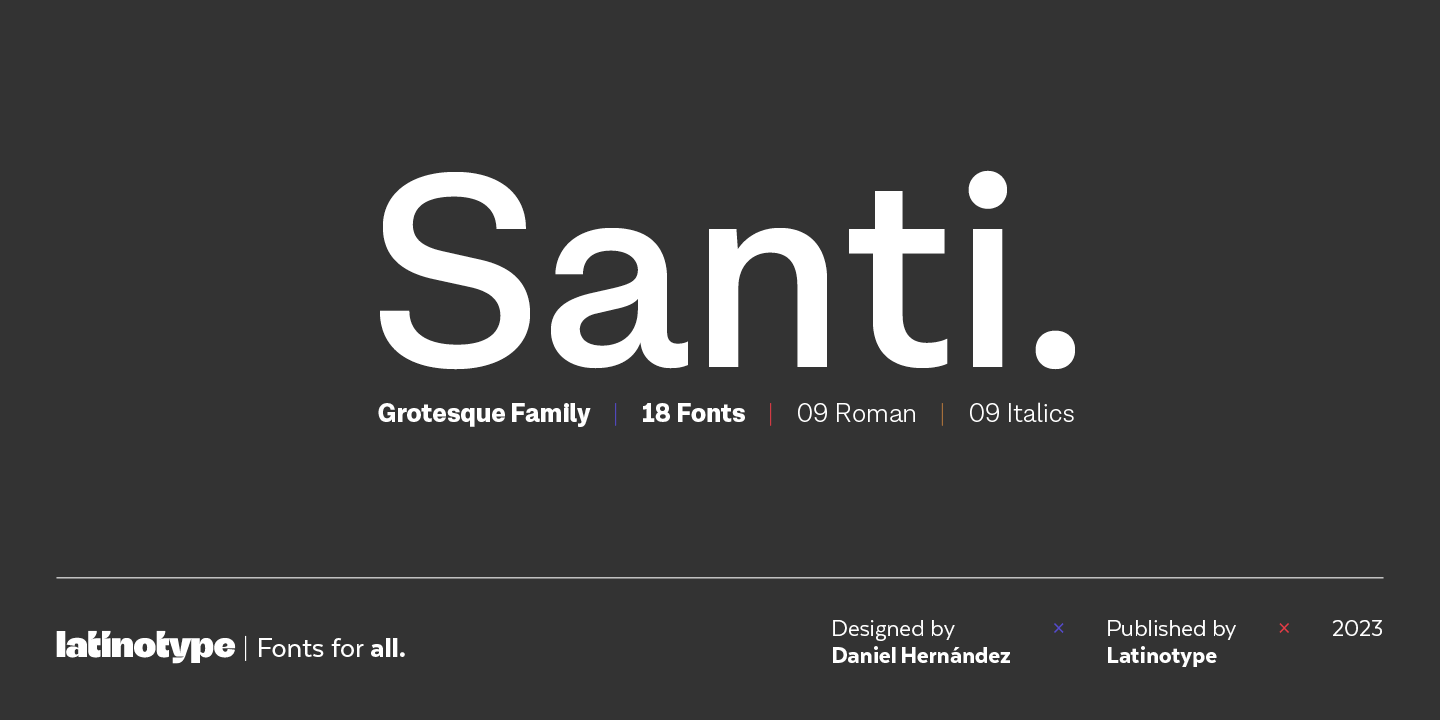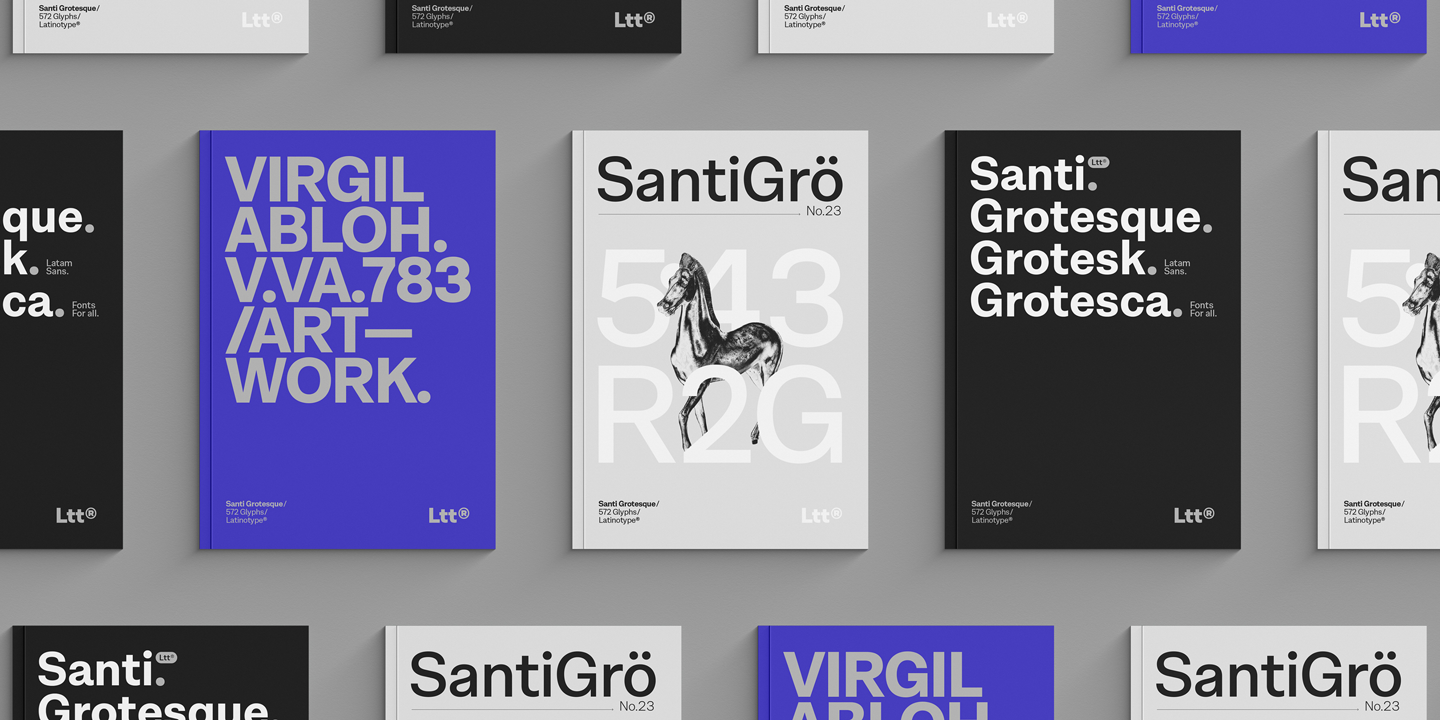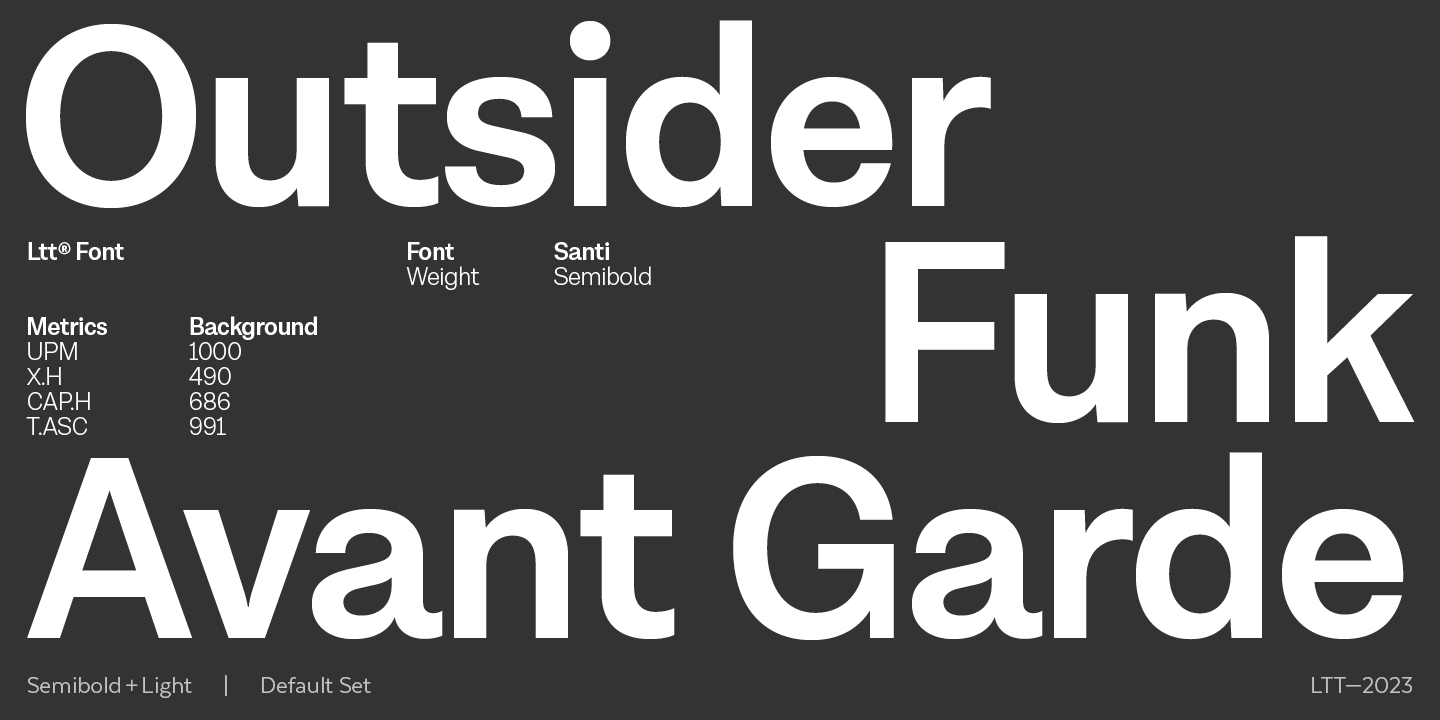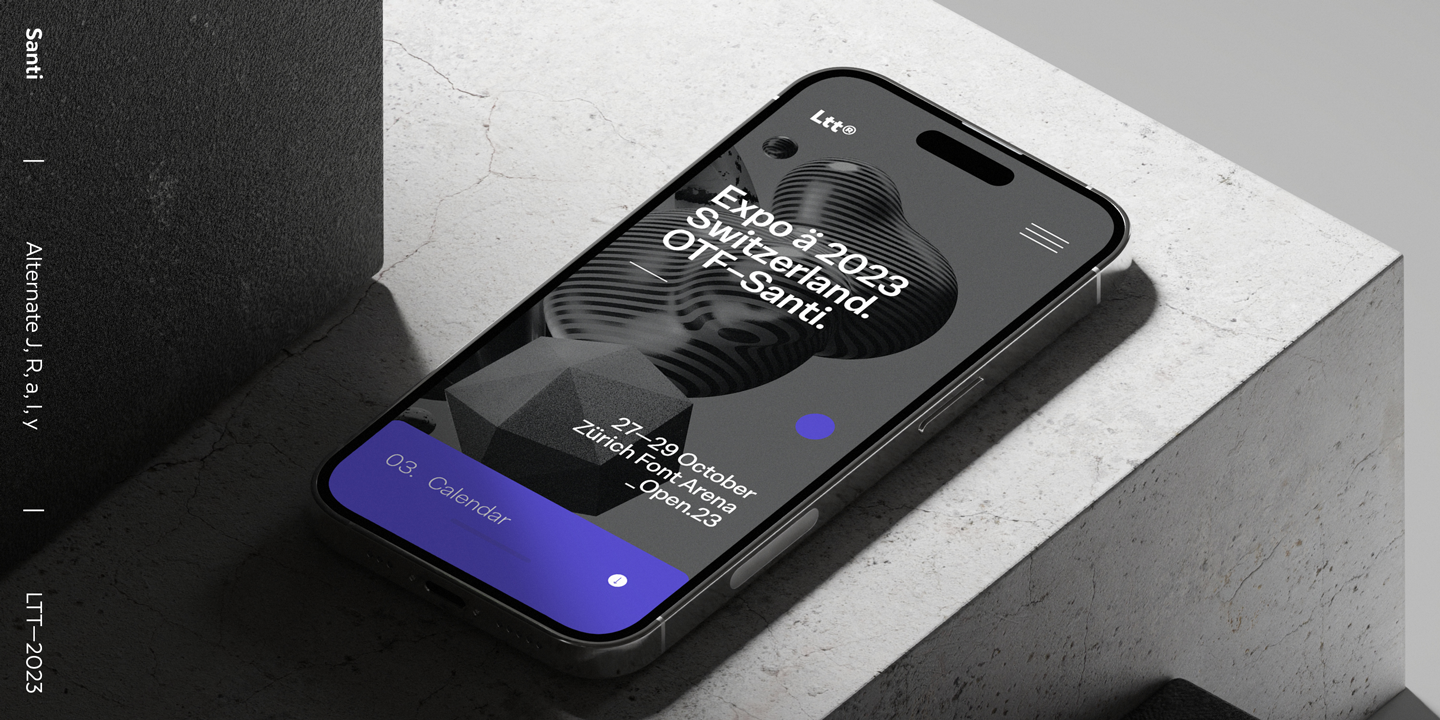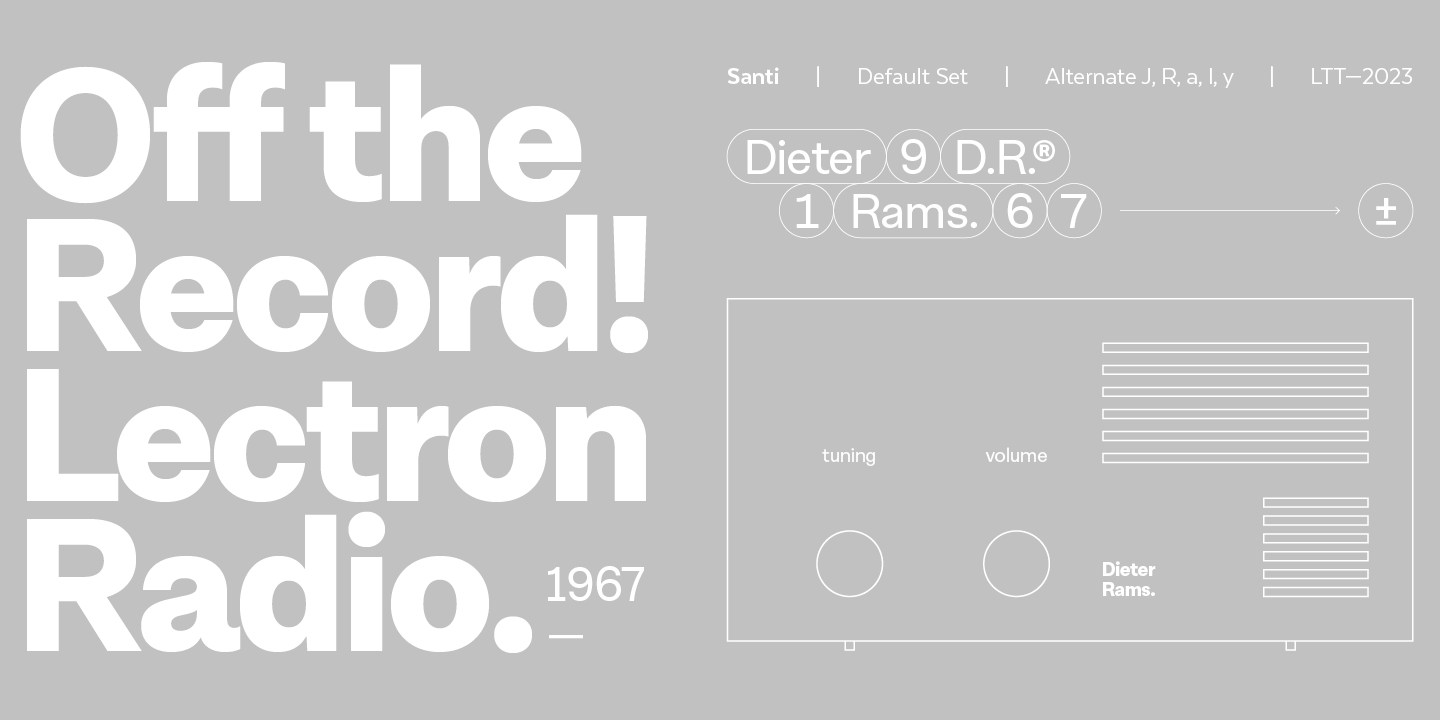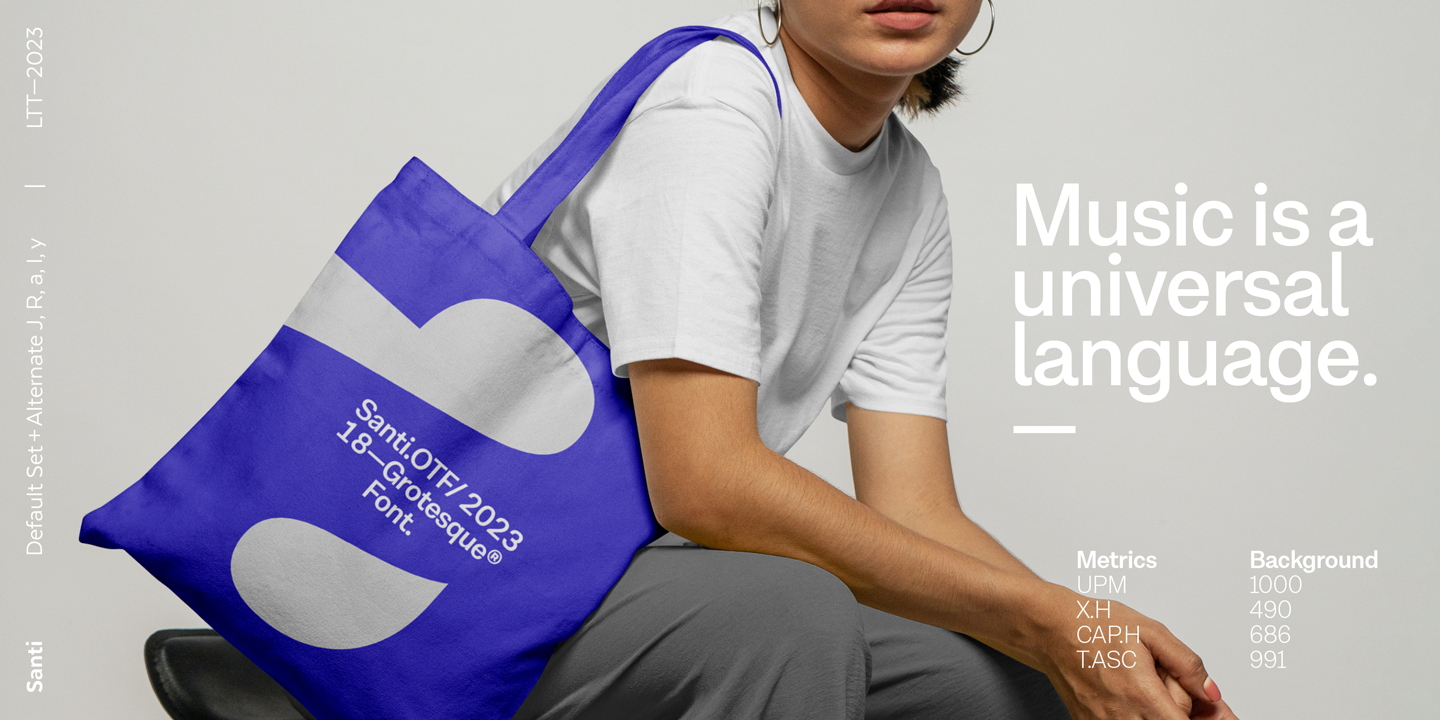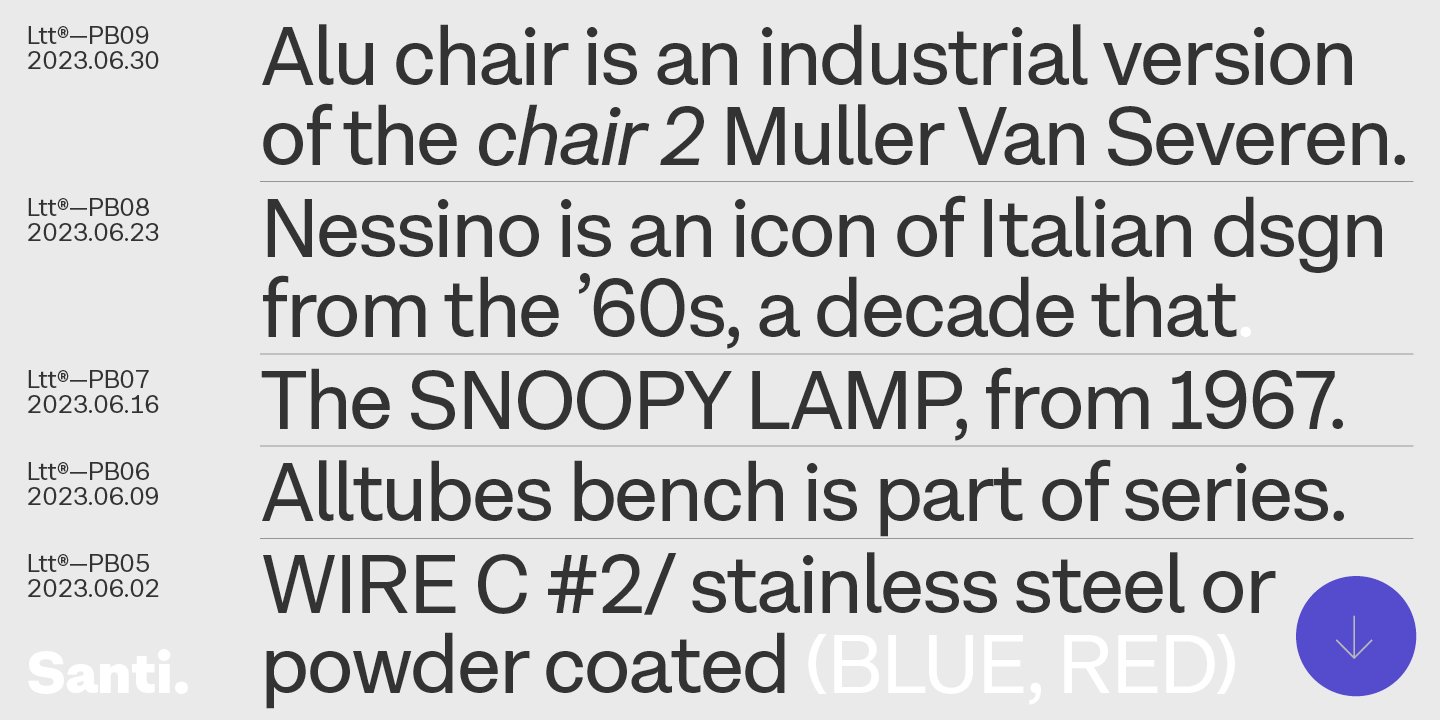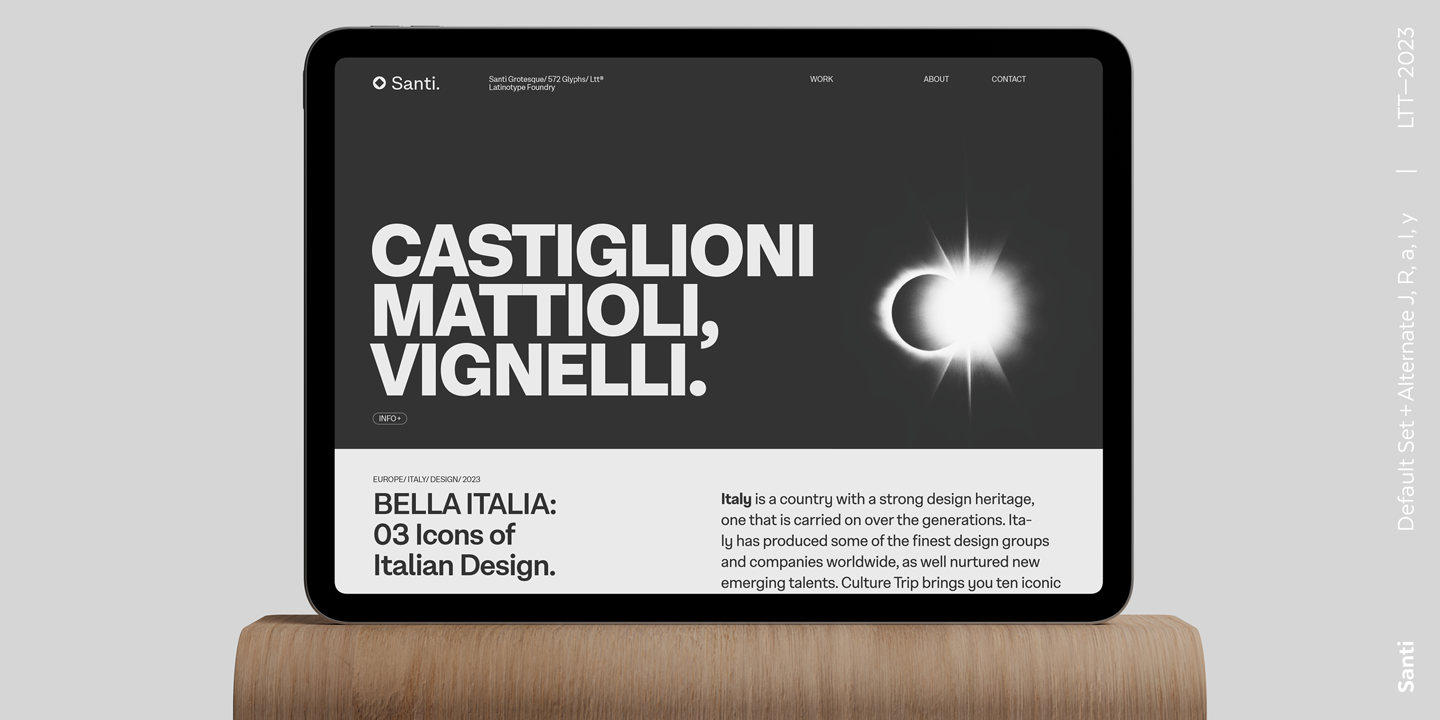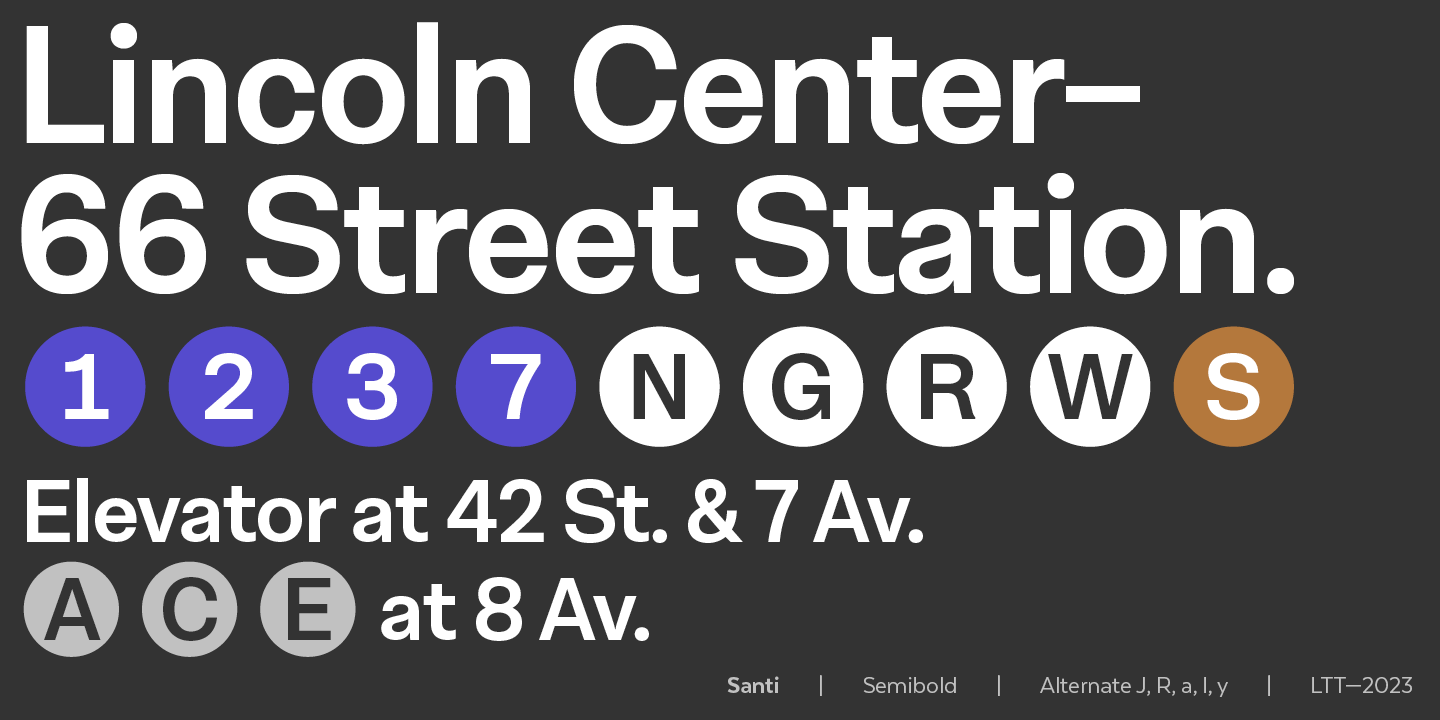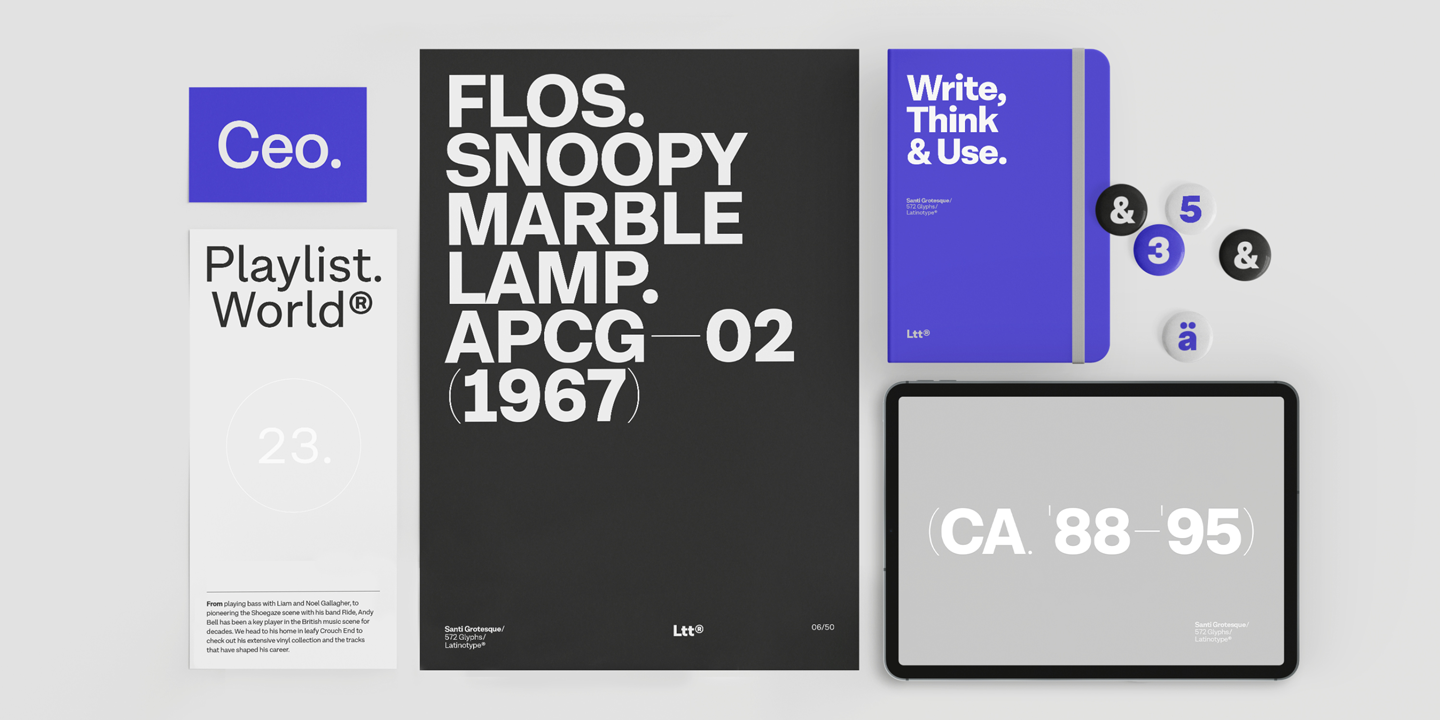
Santi Complete Family (18 fonts)
Santi's versatility transcends current trends and gives it a timeless quality. This typeface blends effortlessly into classic or contemporary projects, offering a perfect balance between the familiar and the innovative. Its functionality extends to every corner of the design, from impactful headlines to readable body copy.